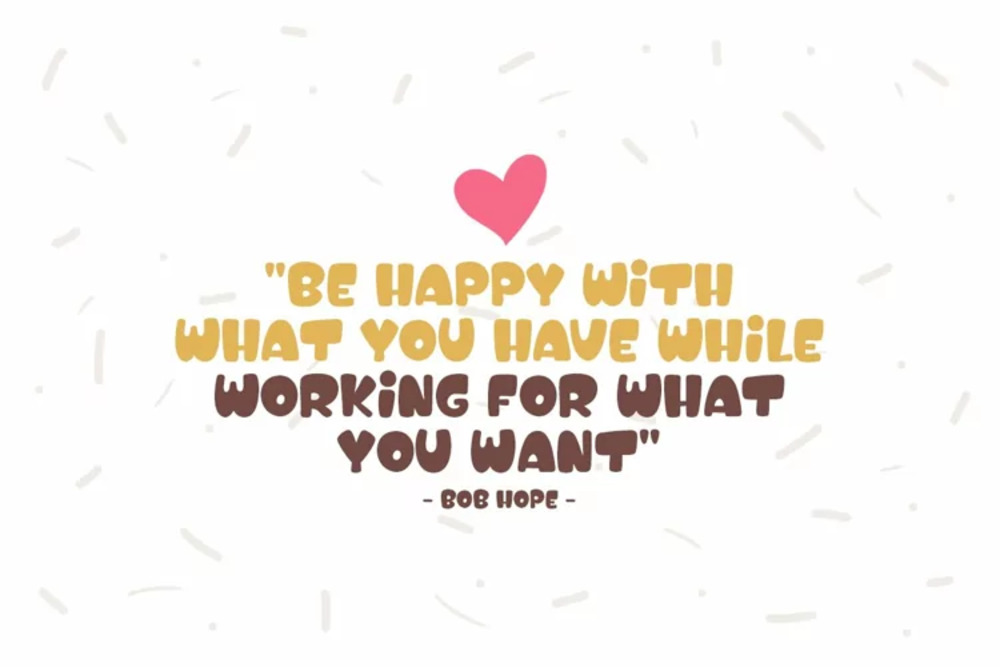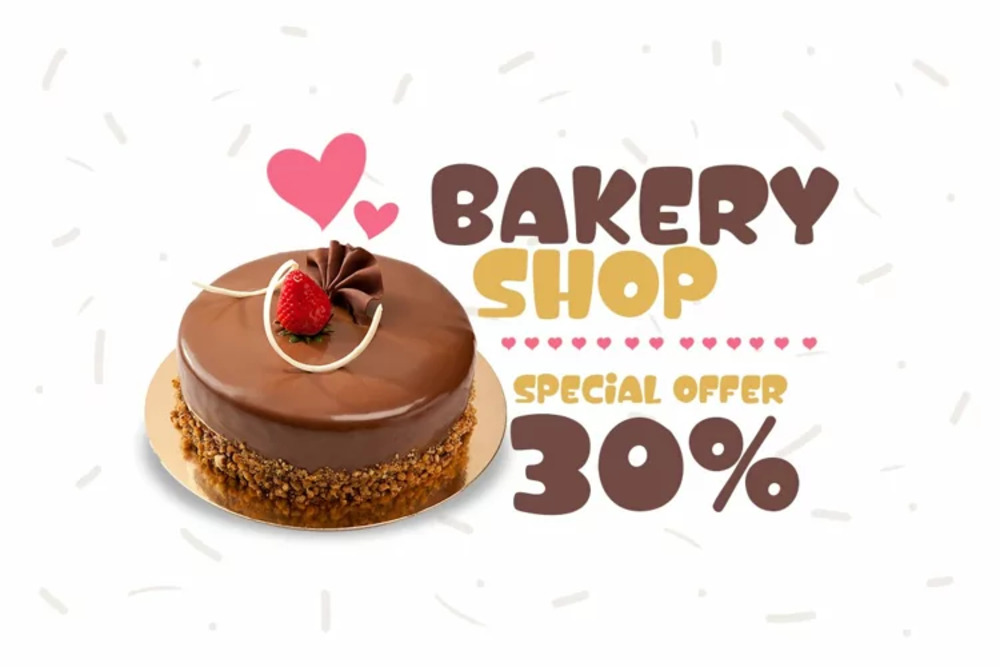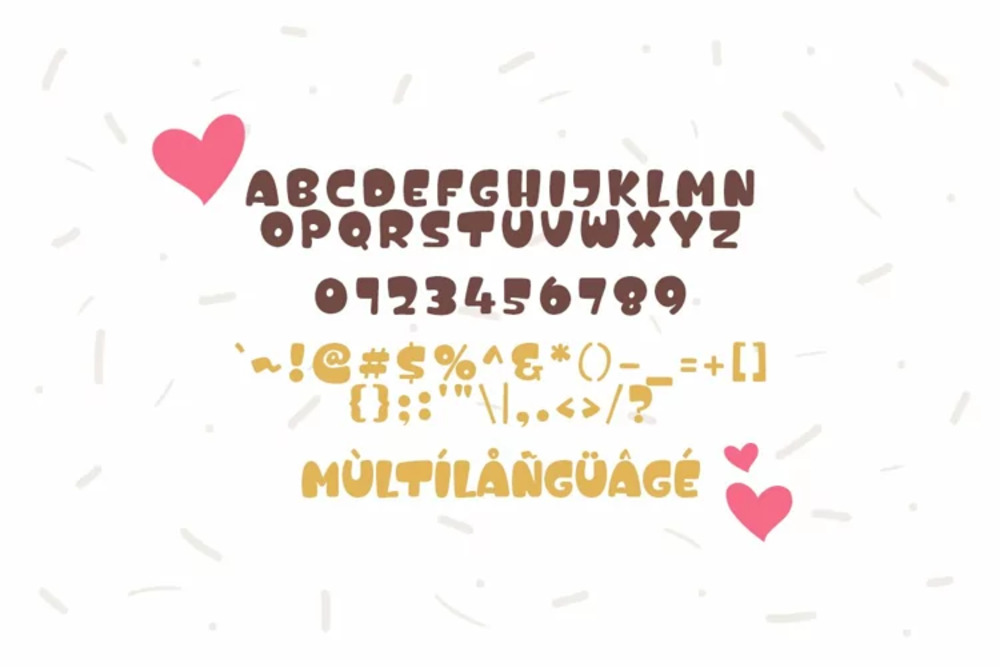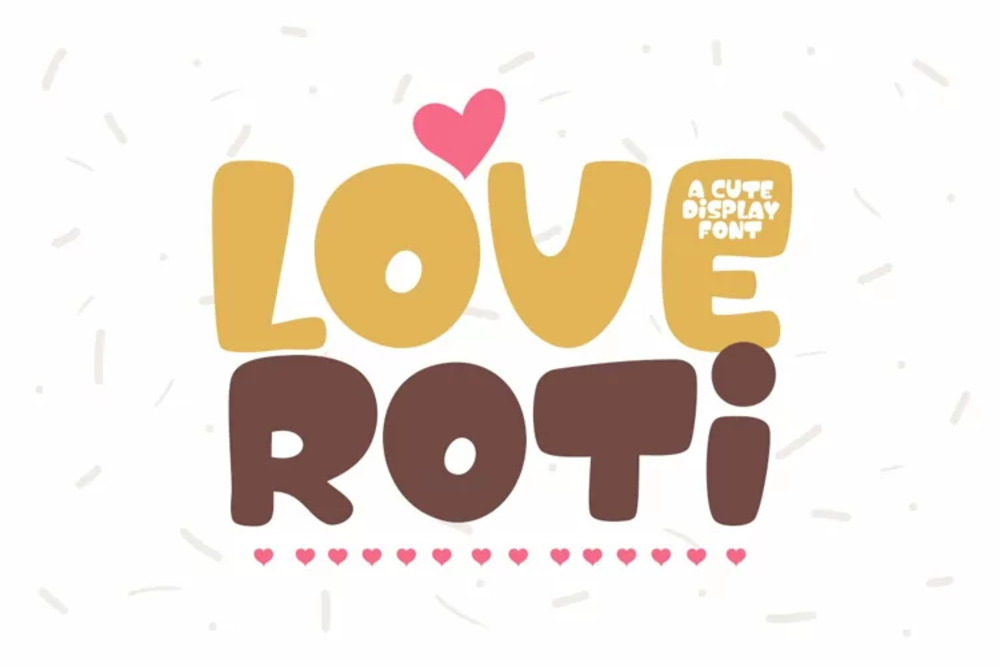
Love Roti Font
Love Roti Font is a playful and charming typeface, brimming with warmth and personality. Its hand-drawn quality evokes a sense of handcrafted artistry, making it perfect for projects that require a touch of whimsy and authenticity. From greeting cards and children’s books to branding and social media posts, Love Roti adds a touch of endearing charm to any design.